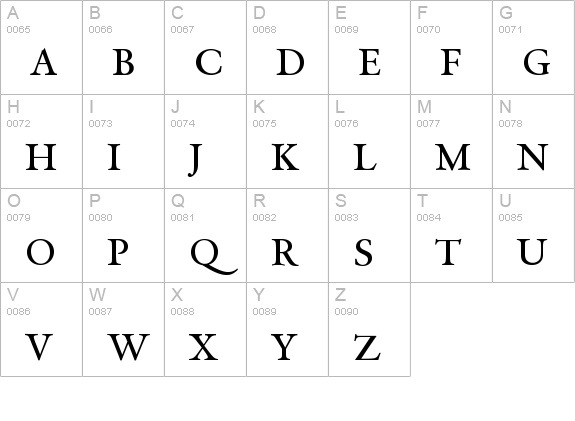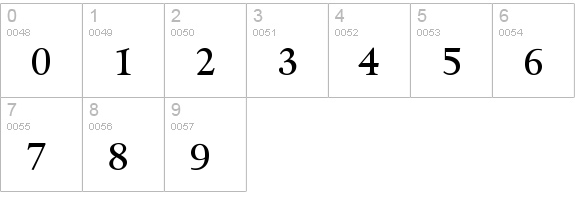
DTLVandenKeereDMedium Font Details
DTLVandenKeereDMedium is a stunning serif font that exudes elegance and sophistication. Its timeless design features classic serifs and clean lines, making it perfect for a wide range of design projects. Whether you're working on branding, editorial design, or web design, this versatile font is sure to make a statement. The best part? DTLVandenKeereDMedium is available for free download at FontsMarket.com. This means you can add this beautiful font to your collection without breaking the bank. Don't miss out on the opportunity to enhance your projects with the timeless charm of DTLVandenKeereDMedium. Download it today and elevate your designs to the next level.